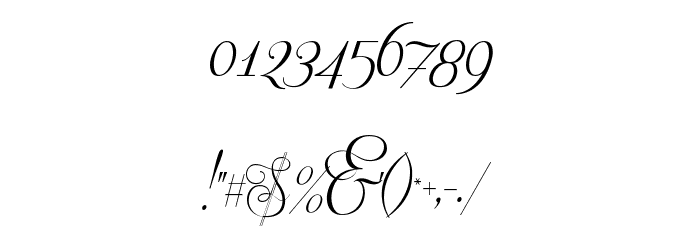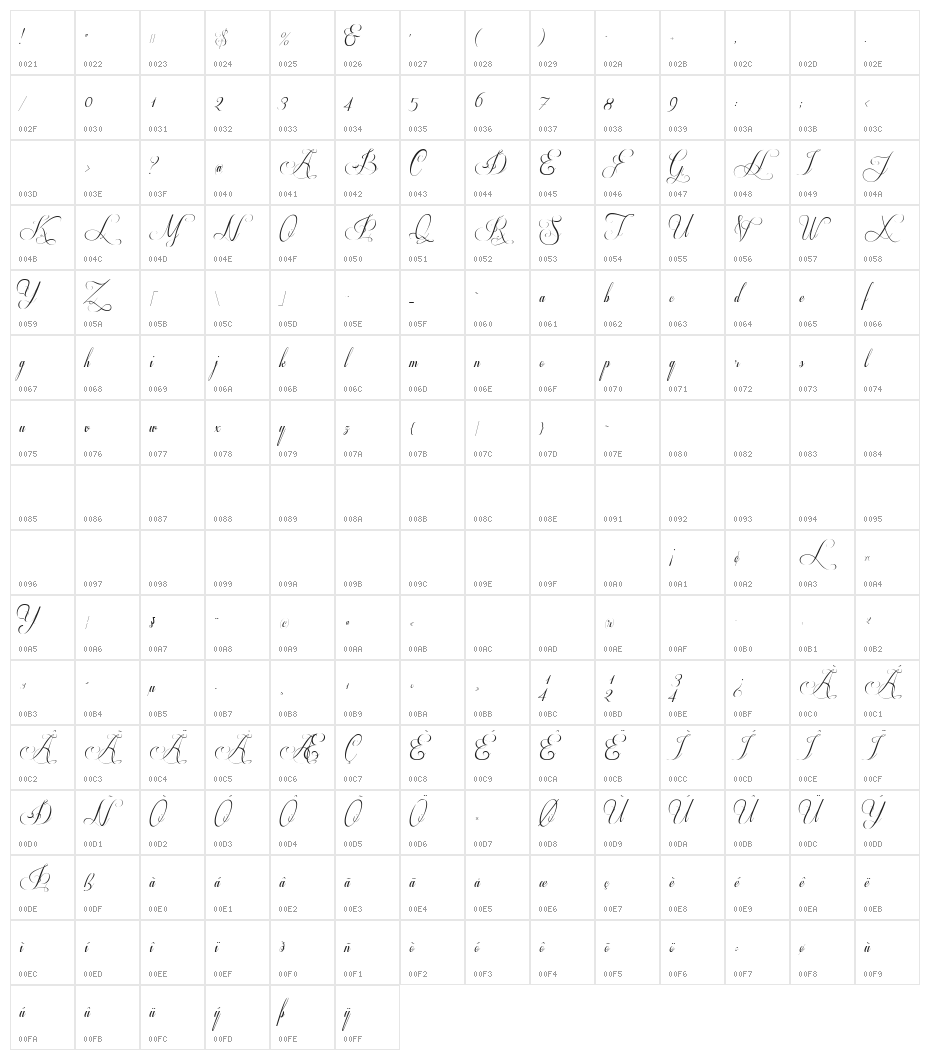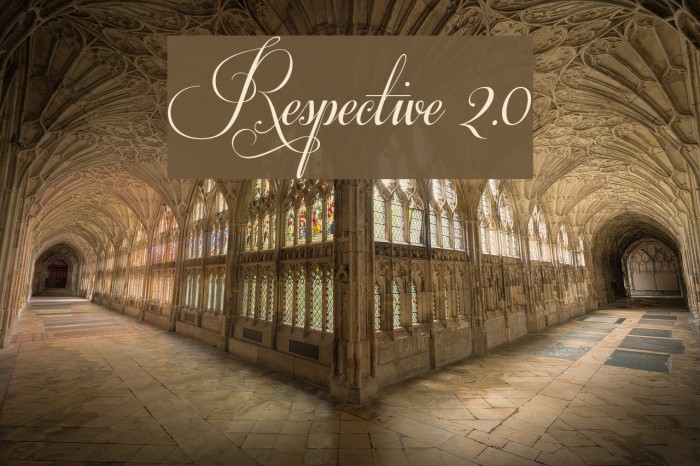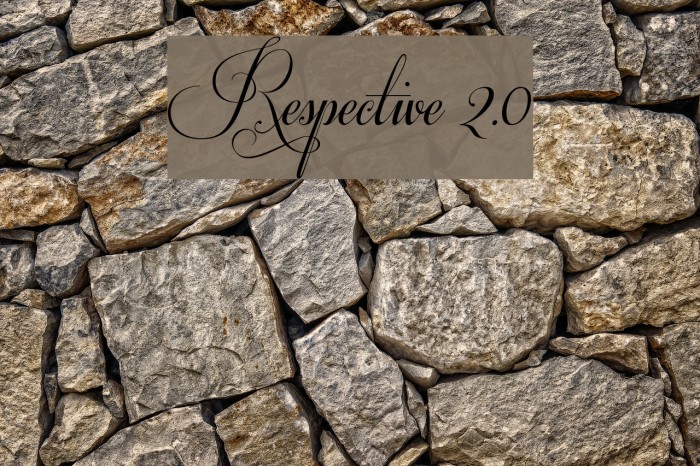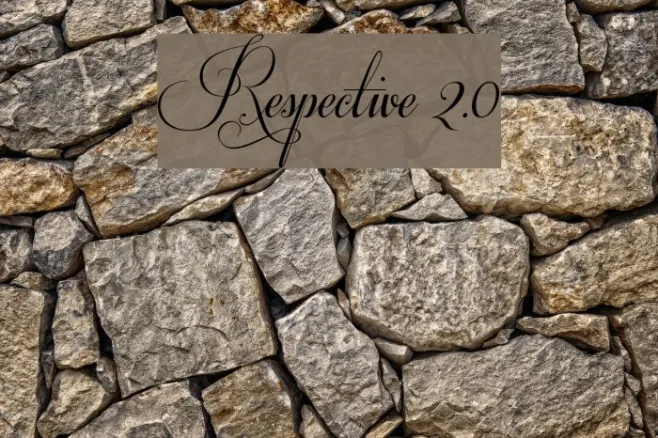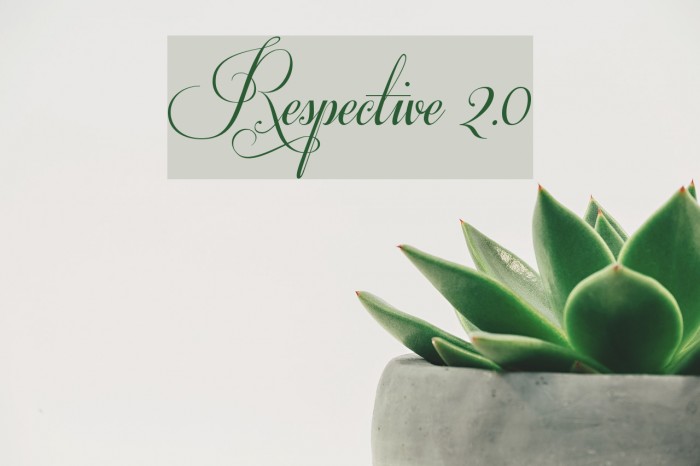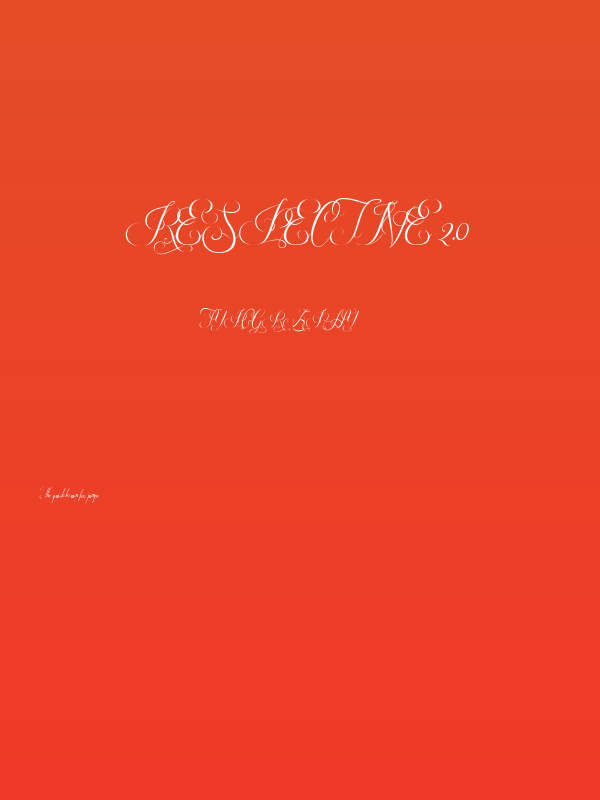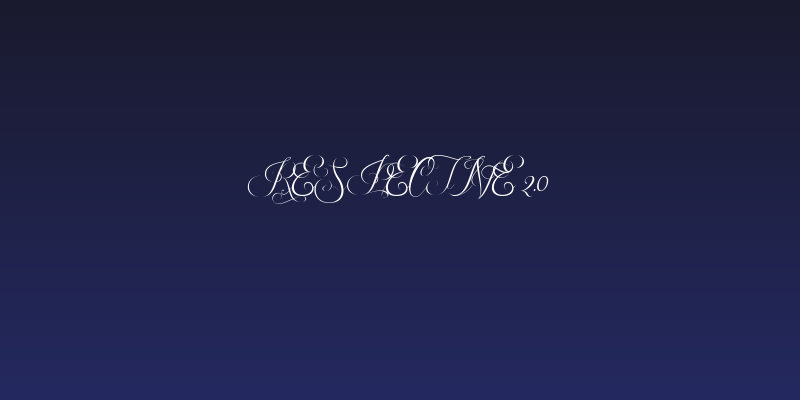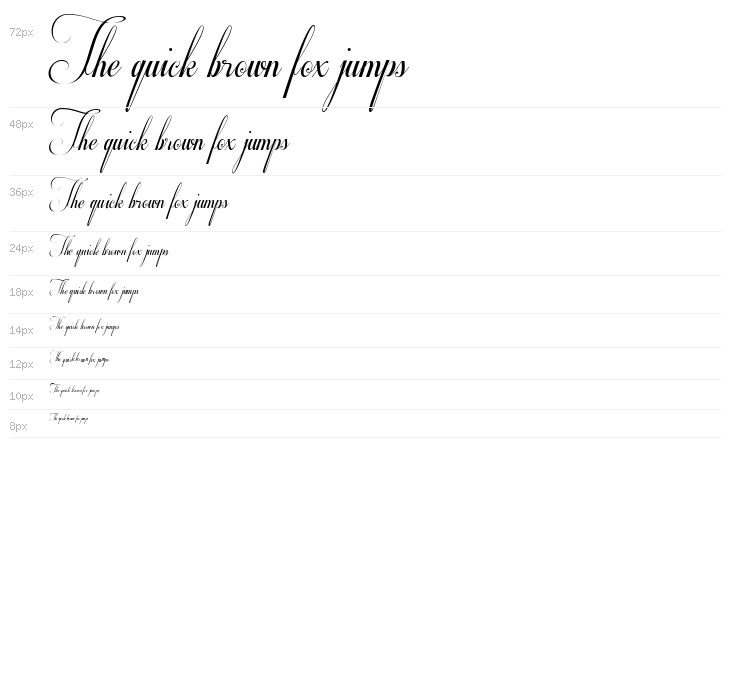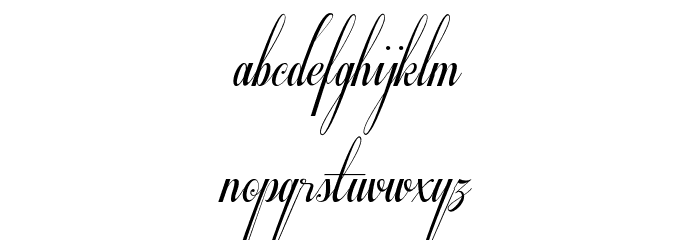
Respective 2.0 Font
Respective 2.0 Description
This elegant script font features intricate flourishes and a refined, flowing style. The uppercase letters are adorned with elaborate swashes, giving them a sophisticated and decorative appearance. The lowercase letters maintain a graceful continuity, with some characters extending below the baseline, adding to the font's ornate nature. The numerals are stylish and consistent with the overall aesthetic, while the special characters blend seamlessly with the script's elaborate design. This font exudes a sense of luxury and formality, making it ideal for high-end branding and design projects.
| Proposed Projects | Ideal for wedding invitations, luxury branding, formal event programs, and elegant packaging designs. |